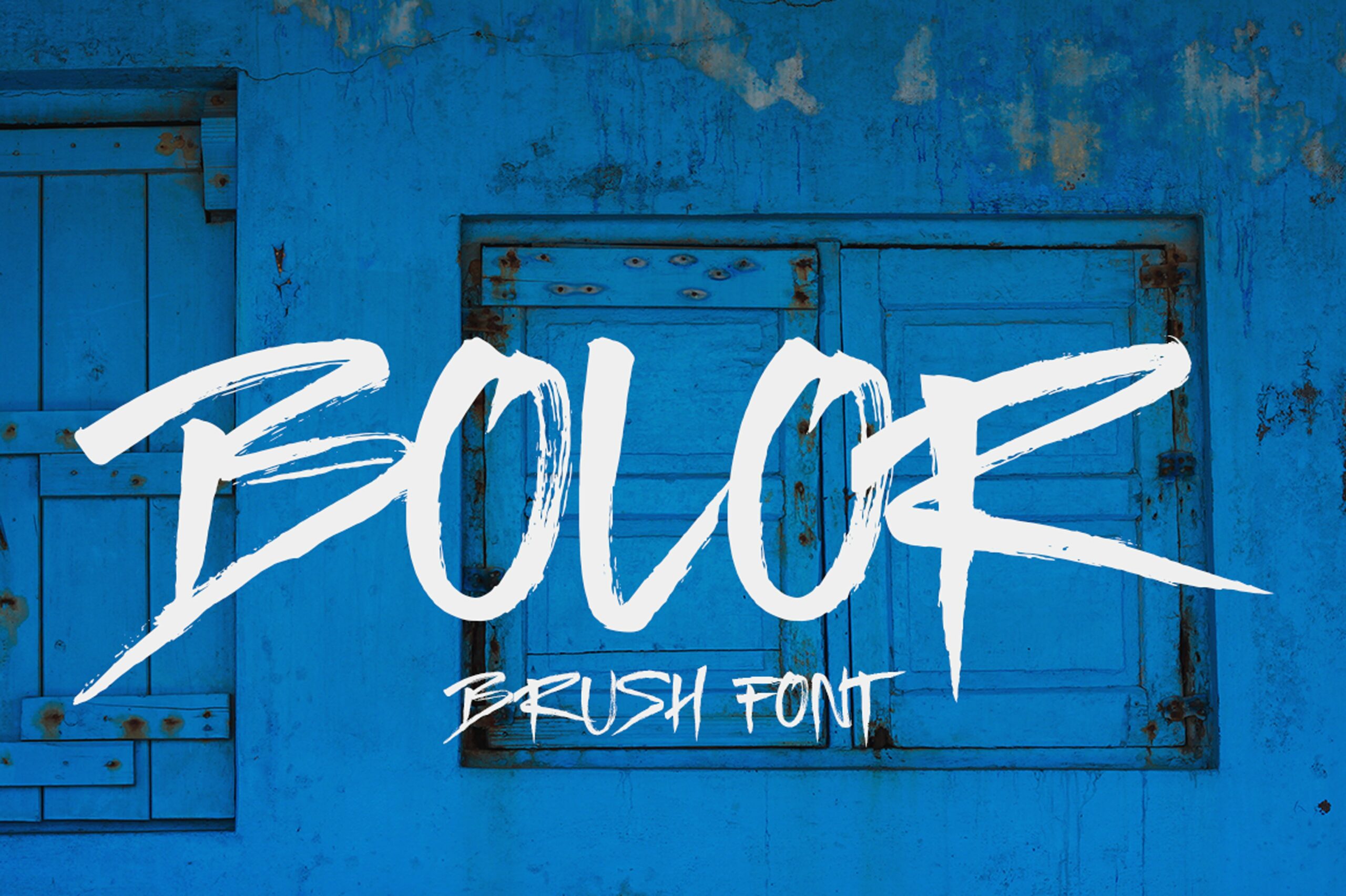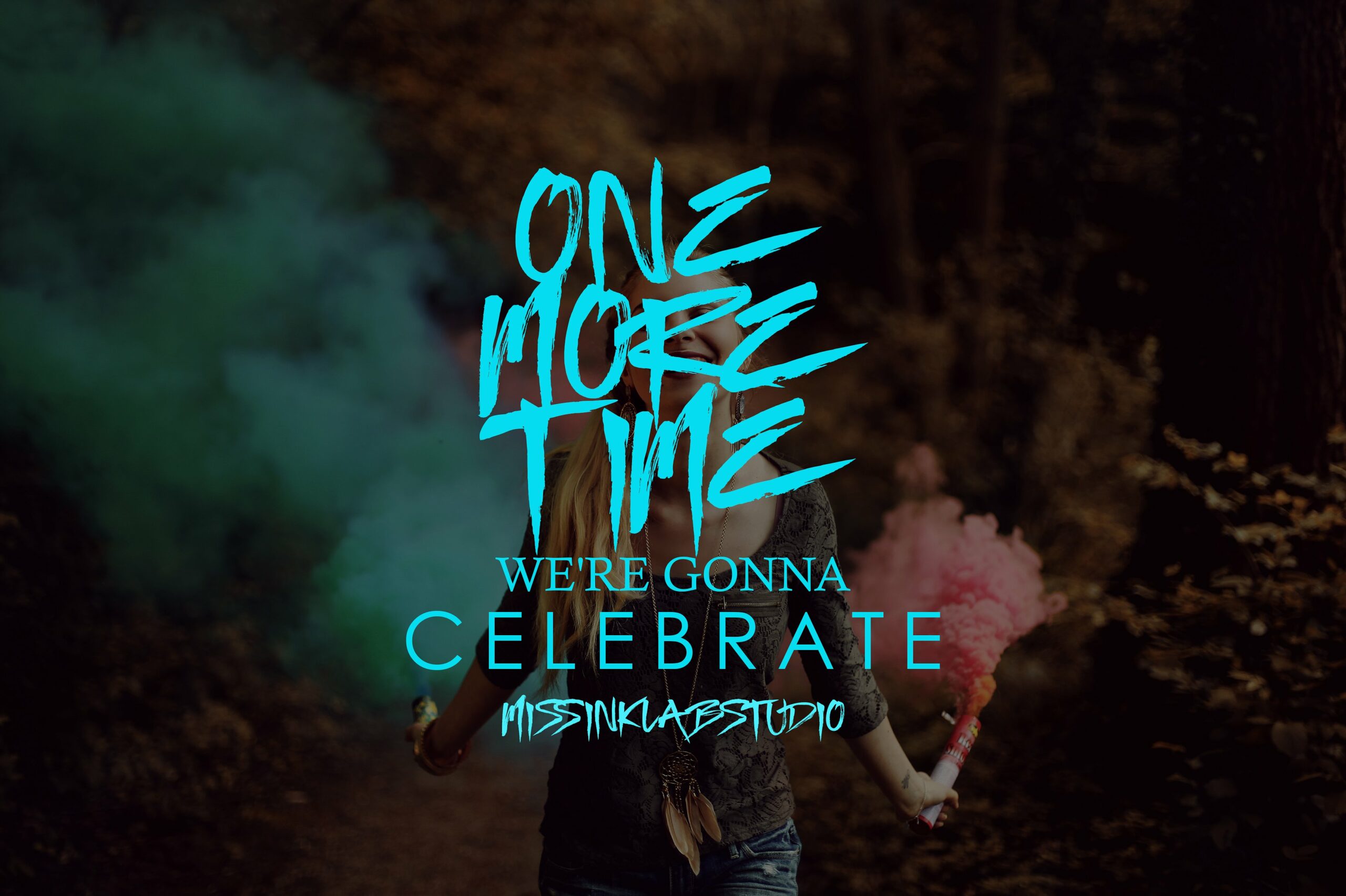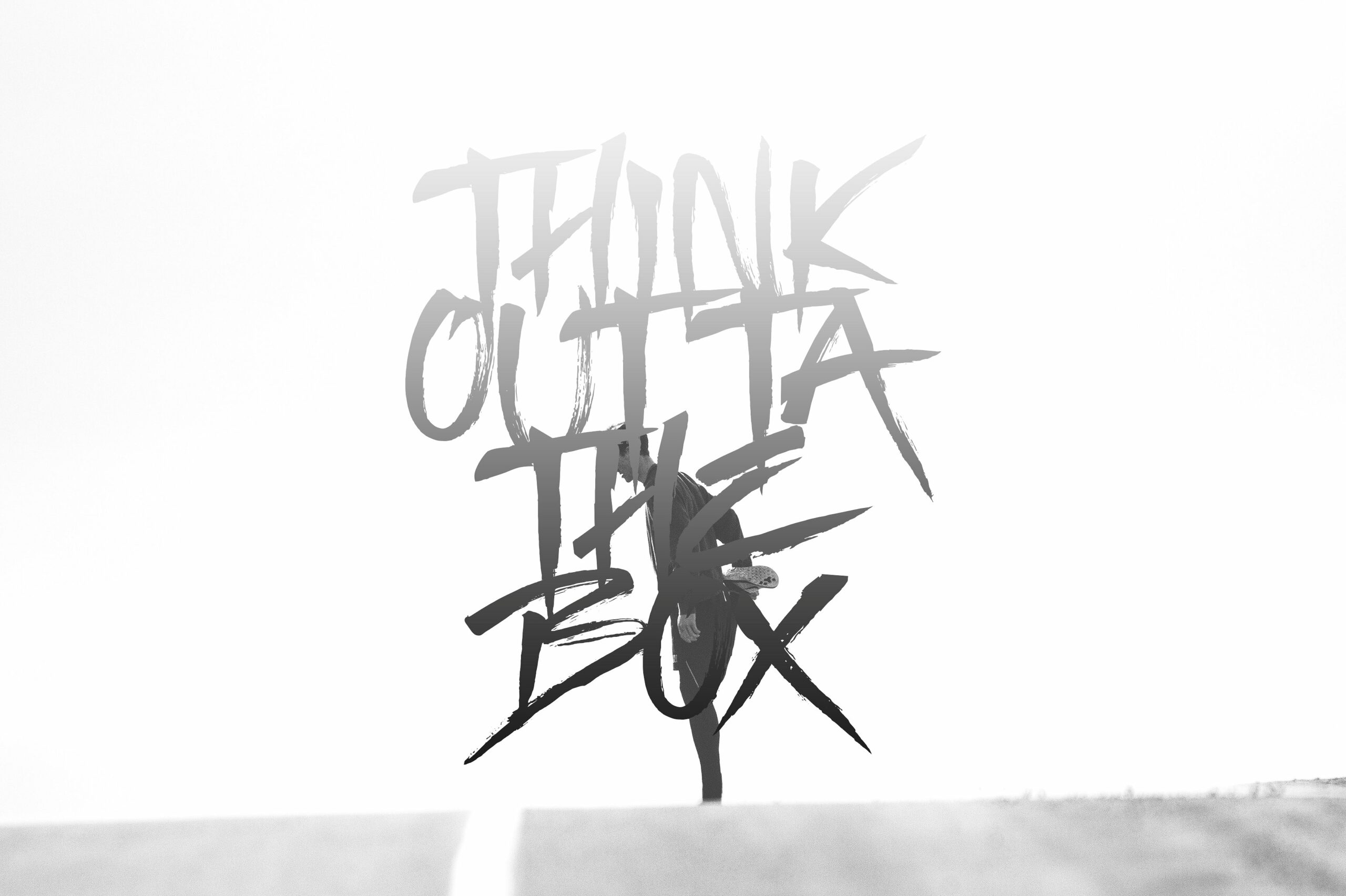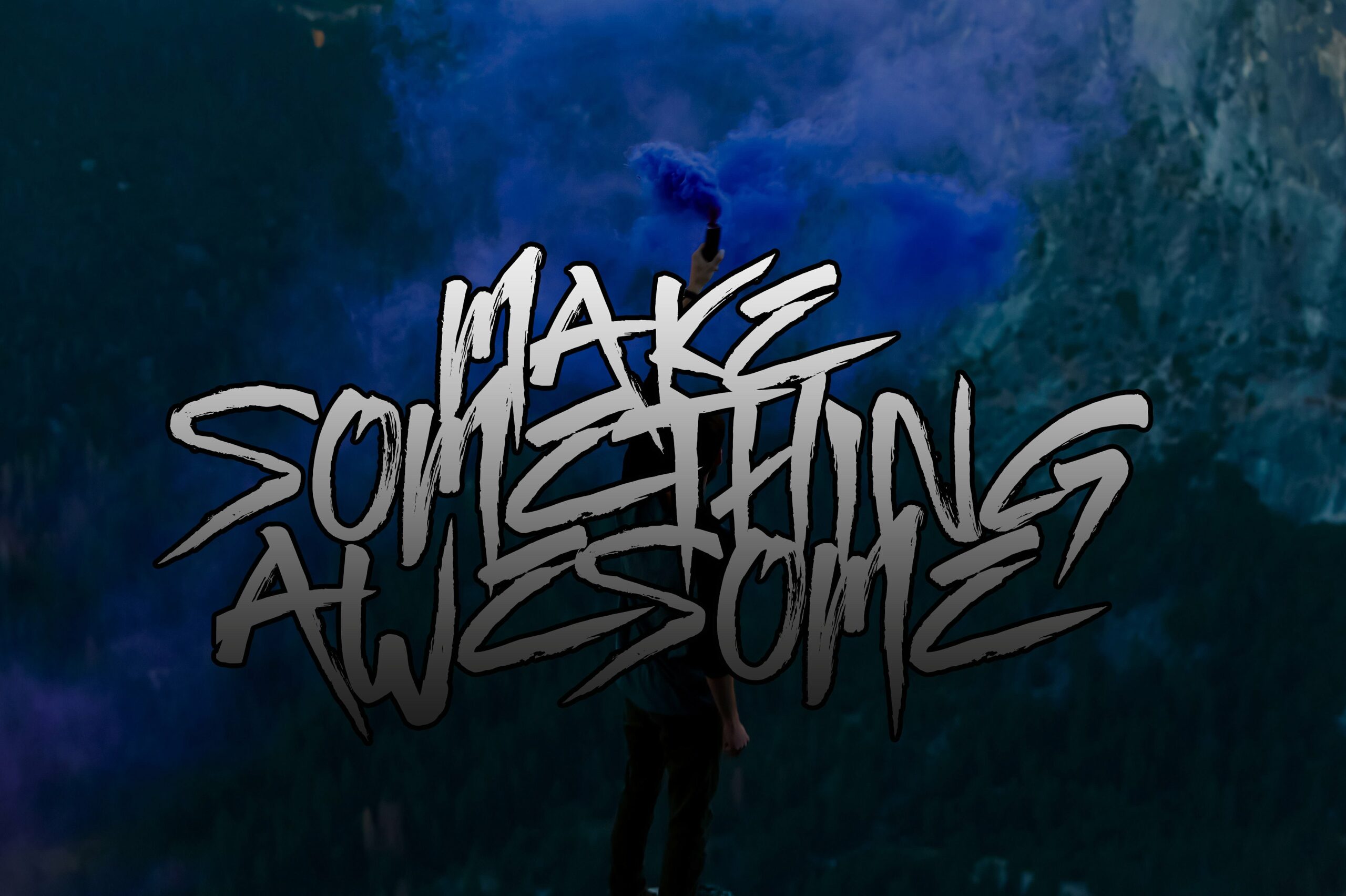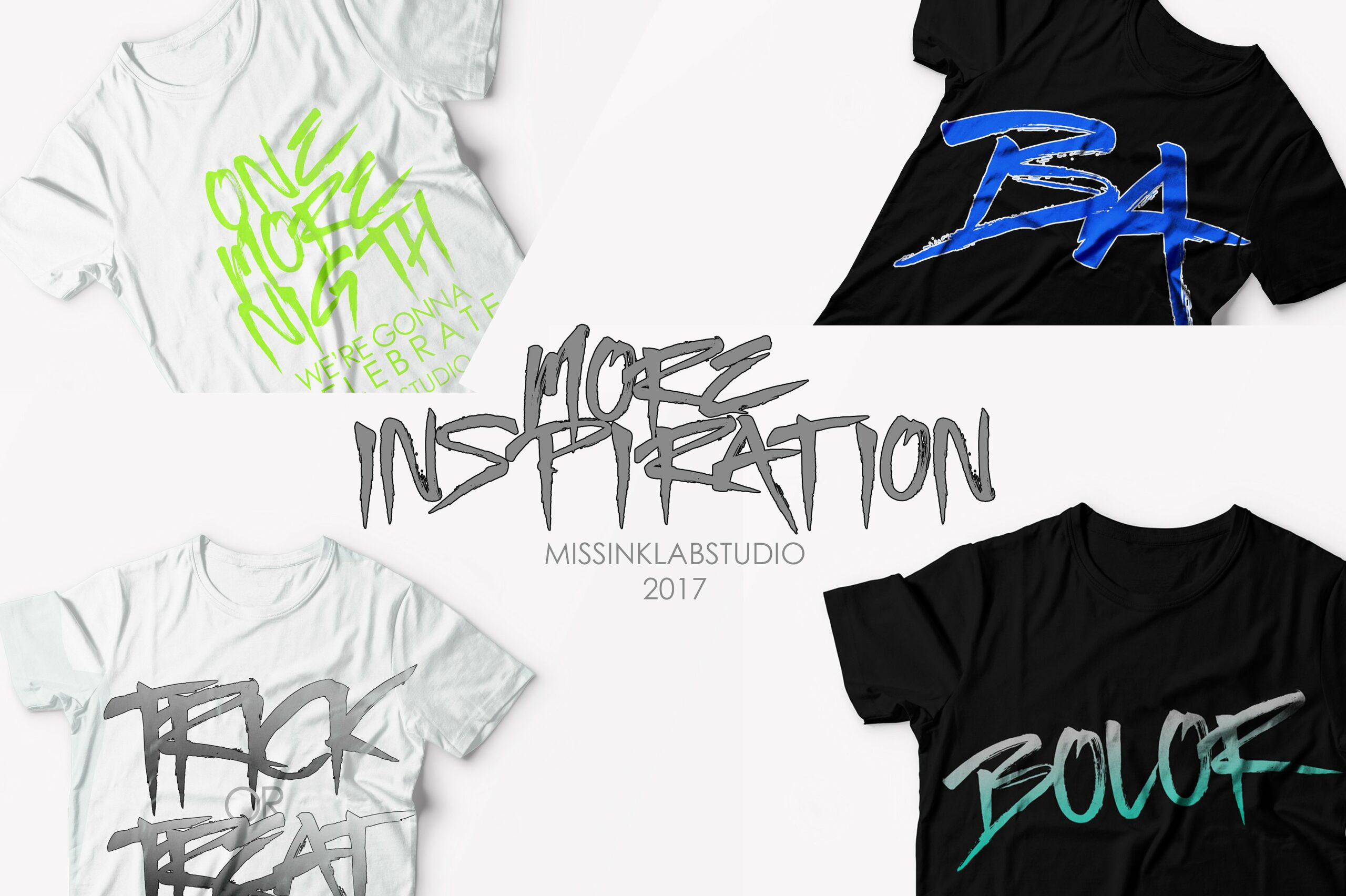
Bolor Font
About Bolor Font
Bolor is a handmade brush that features a unique authentic style. This style can be transferred easily to your projects and it doesn’t matter if this is a corporate or personal project.